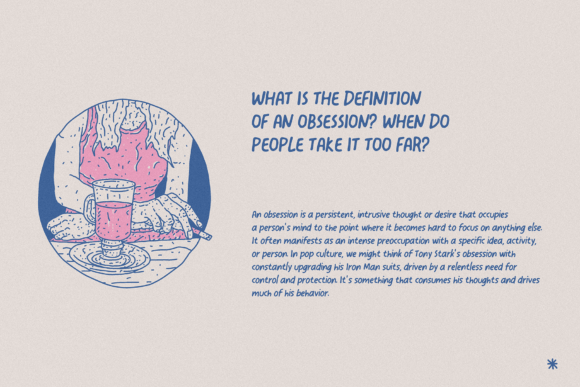
Pleasurize Font
Pleasurize is a handwritten font with natural, imperfect strokes of human handwriting. It typically features uneven letterforms, varying thickness, and organic flow, making it feel personal and intimate. These fonts can range from playful and casual, like a quick note or doodle, to elegant and refined, resembling calligraphy.